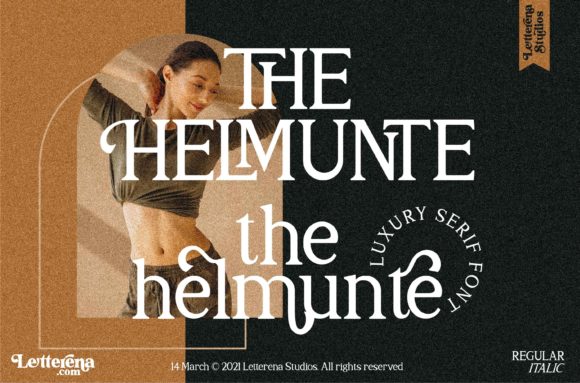
Adorn your designs with The Helmunte Font, a captivating serif font that weaves elegance and boldness into every letterform. Crafted by the talented Letterena Studios, The Helmunte exudes an incredibly versatile style, transforming your creative visions into stunning masterpieces.
Step into a realm of limitless possibilities as you unveil the beauty of The Helmunte. Let this font ignite your passion for design, inspiring you to create breathtaking invitations, where each word dances with grace and sophistication. Envision delicate stationary art, where The Helmunte's timeless charm adds a touch of refinement to your heartfelt messages.
Harness the power of The Helmunte to captivate your audience on social media. Craft eye-catching posts that dance off the screen, demanding attention with their distinct personality. The Helmunte's versatility effortlessly adapts to any platform, making it the perfect choice for designers seeking to make a lasting impression.
The Helmunte is meticulously crafted to provide unparalleled ease of use. PUA encoding grants you effortless access to a treasure trove of glyphs and swashes, empowering you to unleash your creativity without boundaries. Dive into a world of endless customization, where every design element seamlessly comes together to create a cohesive visual symphony.
With The Helmunte Font as your creative companion, you hold the key to unlocking a world of design possibilities. Elevate your invitations to new heights of elegance, transform stationary art into cherished keepsakes, and weave captivating social media posts that leave an indelible mark. The Helmunte is the font that ignites your passion, propelling your designs to new realms of brilliance.
Embark on a design journey like never before with The Helmunte Font. Let your creativity flourish as you witness the transformative power of this elegant and versatile font. The Helmunte is more than just a font; it's an invitation to unleash your inner artist and create designs that resonate with beauty, sophistication, and timeless appeal.